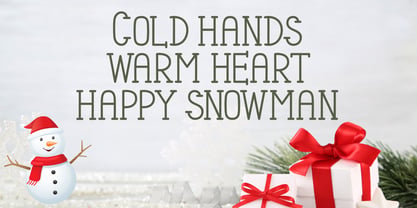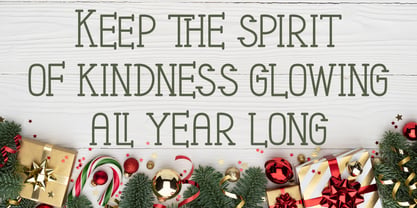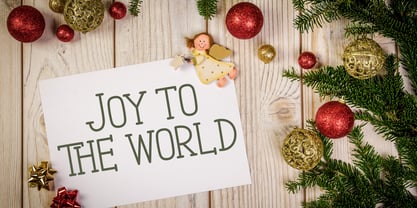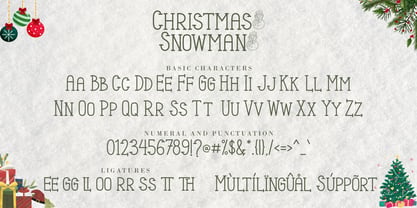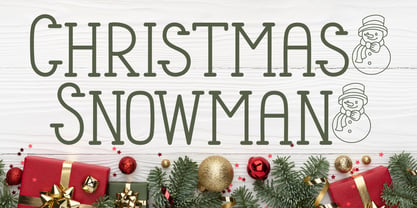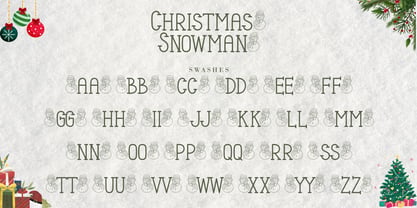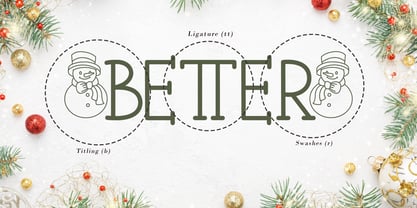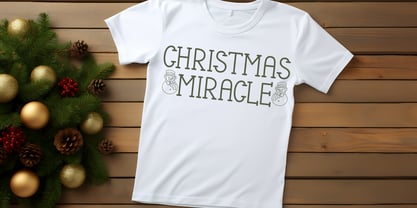
Christmas Snowman
by AEN Creative Studio
The Christmas Snowman Font Family was designed by Agung Eko Nugroho and published by AEN Creative Studio. Christmas Snowman contains 2 styles and family package options. More about this family
Designed with the warmth of a handwritten note, Christmas Letter captures the joyful essence of the holiday season. Its charming handwritten style is elegant and fun, perfect for creating greeting cards, mugs, or digital crafts. Its handcrafted feel makes every design more meaningful. Let your words glow with Christmas cheer through this sweet and timeless font.
Designers: Agung Eko Nugroho
Foundry: AEN Creative Studio